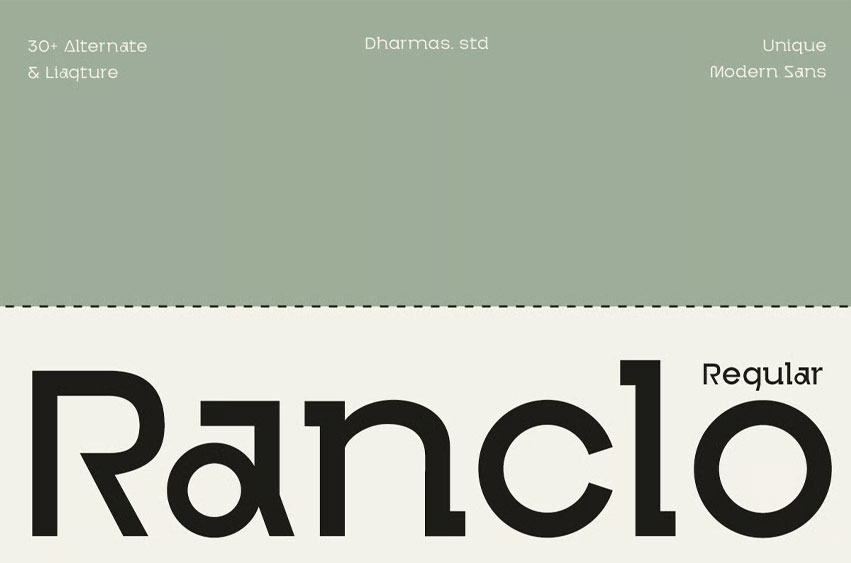
Ranclo Regular Font
Ranclo Regular Font is a modern display typeface crafted for high-end branding and professional design projects. With its clean, geometric letterforms and refined aesthetic, this font blends contemporary minimalism with timeless elegance—ideal for businesses seeking a polished and confident visual presence.
This font includes the Regular style, featuring sleek proportions, structured shapes, and strong typographic clarity. Perfect for creating standout headlines, visual identities, and professional presentations, Ranclo offers both precision and sophistication in every detail.
Font Features:
• 1 Style: Regular
• 32+ Alternates & Ligatures for creative flexibility
• OpenType Features: Advanced typographic options
• Multilingual Support: Covers multiple global languages